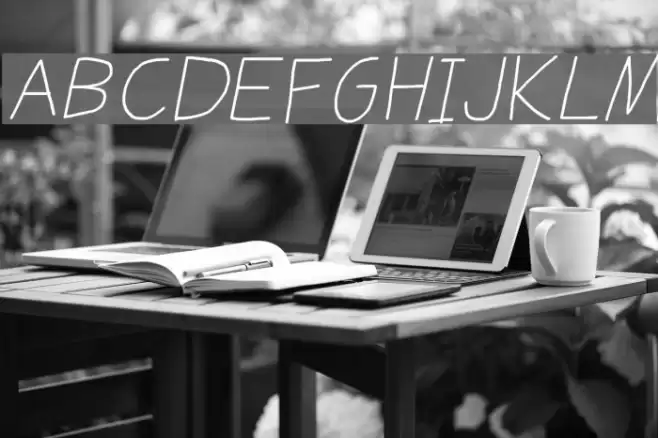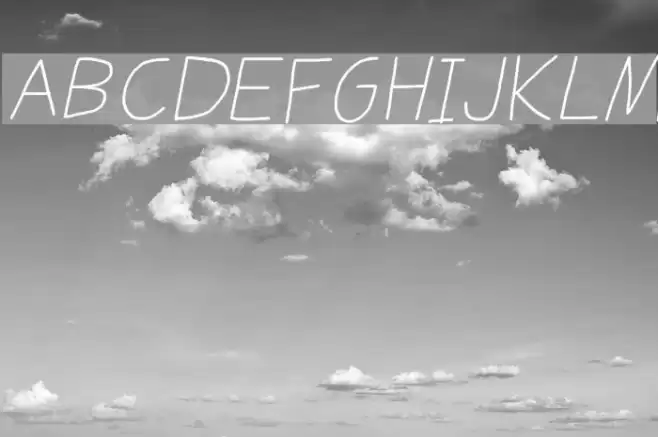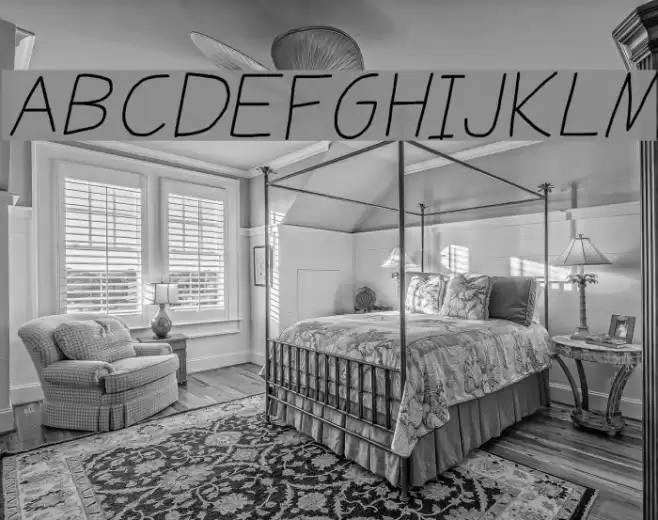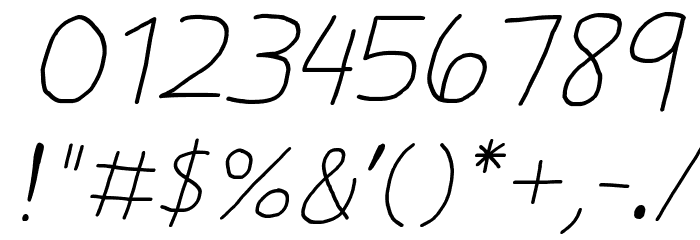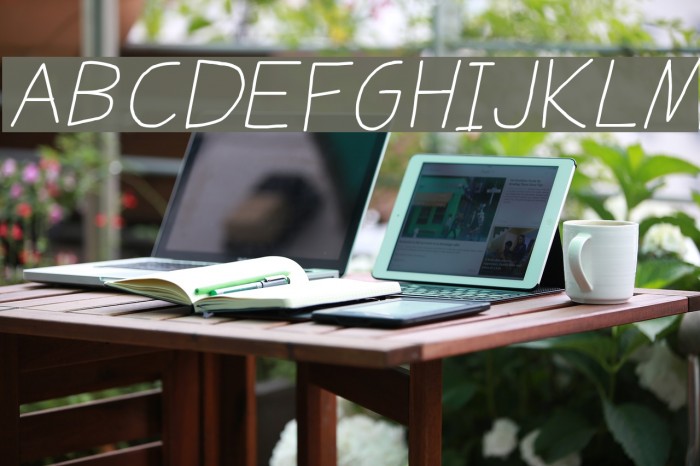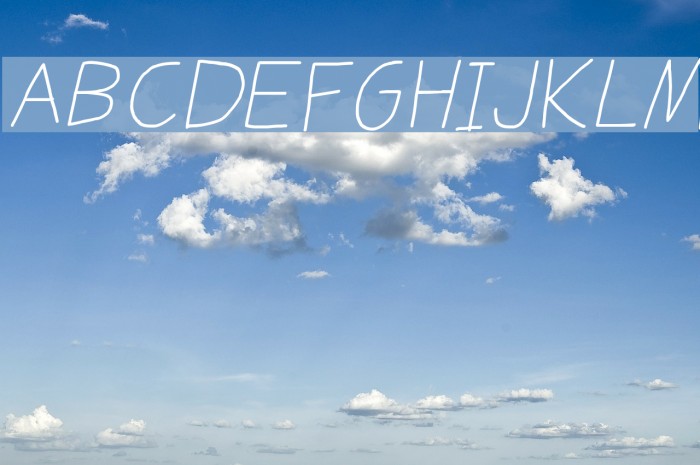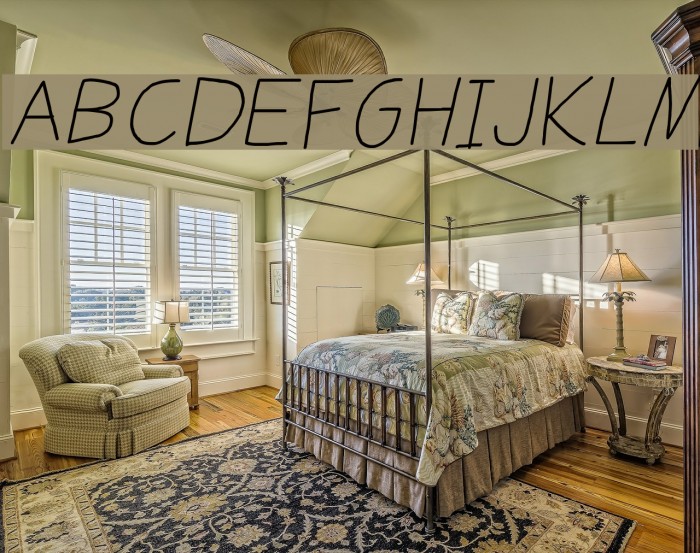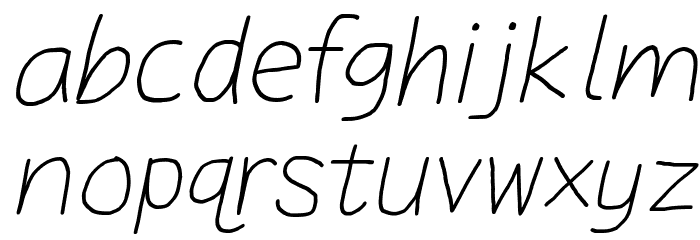
Daniel's Handwriting Italic Font
Daniel's Handwriting Italic Description
This font exudes a casual and personal touch, reminiscent of natural handwriting. The characters are slightly slanted, giving it an italicized appearance that enhances its informal style. Each letter is crafted with a smooth, flowing line that maintains a consistent stroke width throughout, contributing to its legibility and charm. The uppercase letters are distinct yet harmonize well with the lowercase, which are rounded and slightly elongated. Numbers and special characters follow the same handwritten aesthetic, making them blend seamlessly with the alphabet. The overall design is clean and uncluttered, making it suitable for projects that require a personal or informal tone.
A casual, handwritten-style font with an italic slant and consistent stroke width from Uncategorized fonts.
- Proposed Projects: Ideal for personal notes, invitations, greeting cards, and informal branding projects.
- Overall Style: Casual, Informal
- Use Case: Personal notes, Invitations, Greeting cards